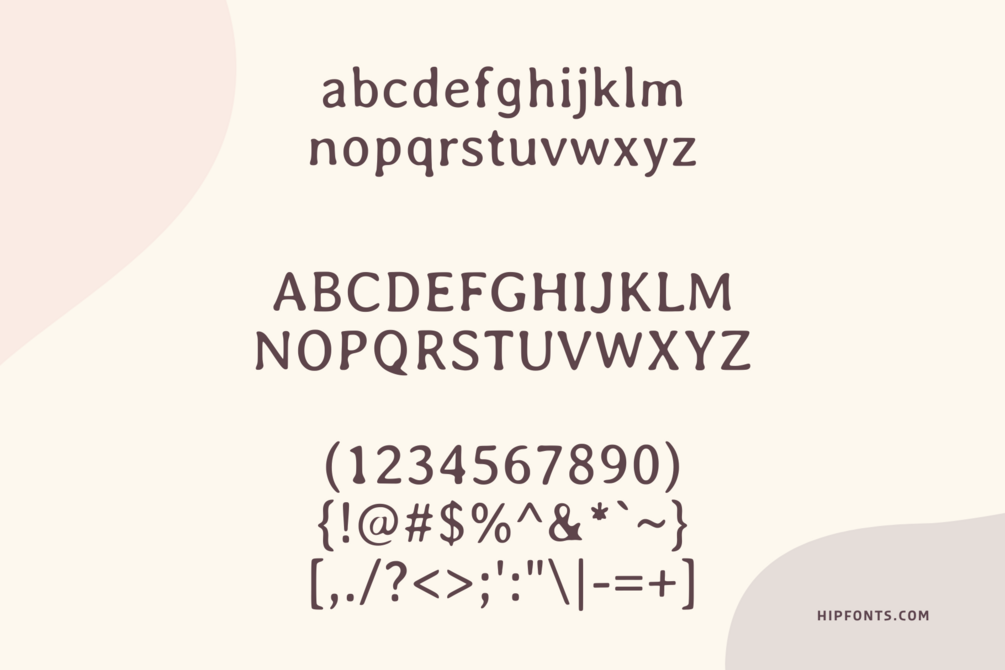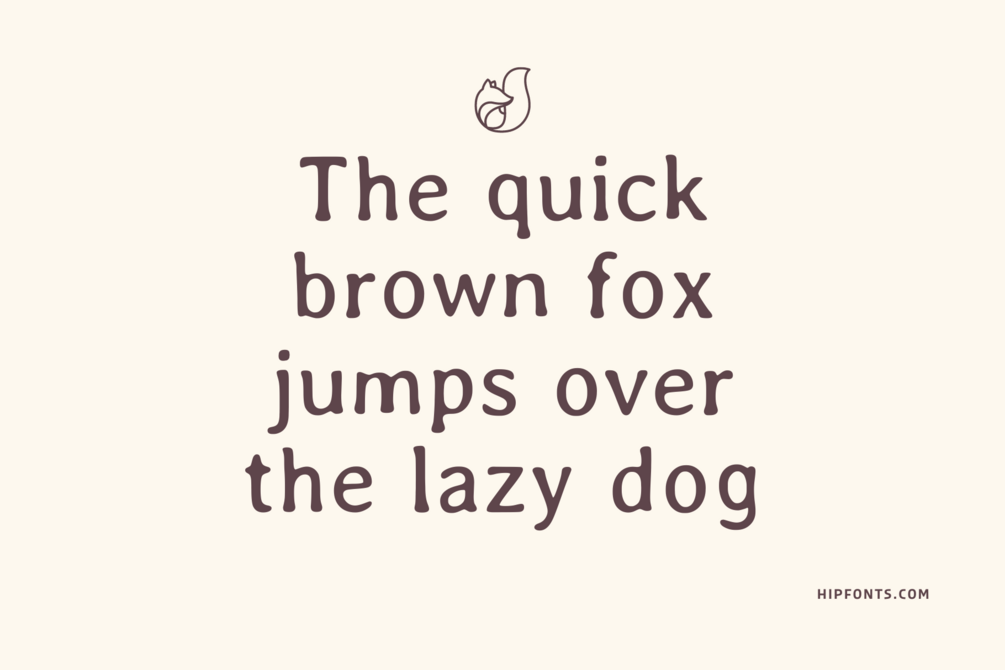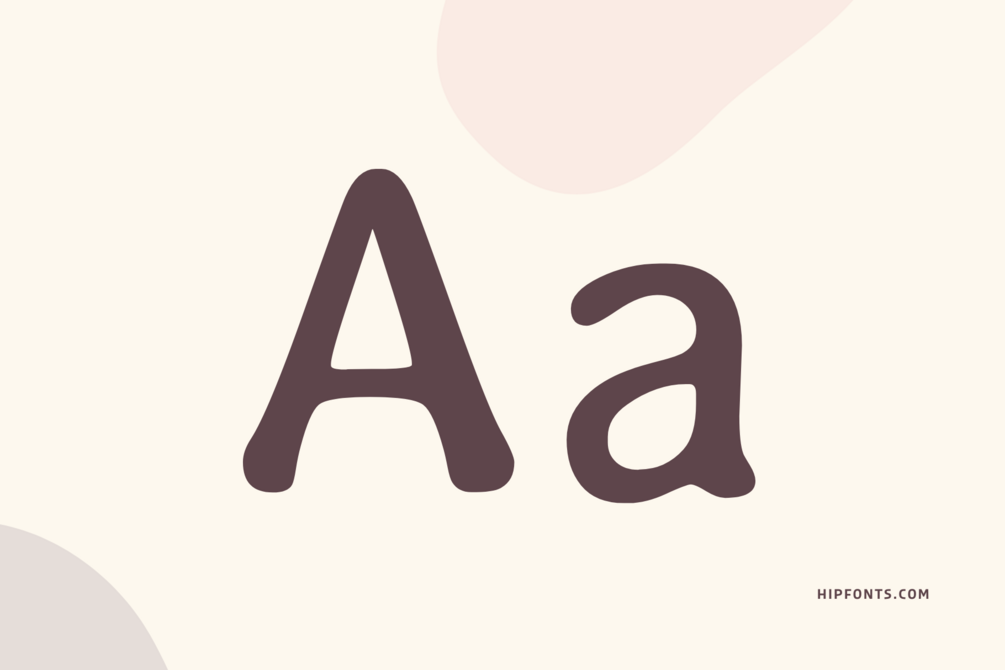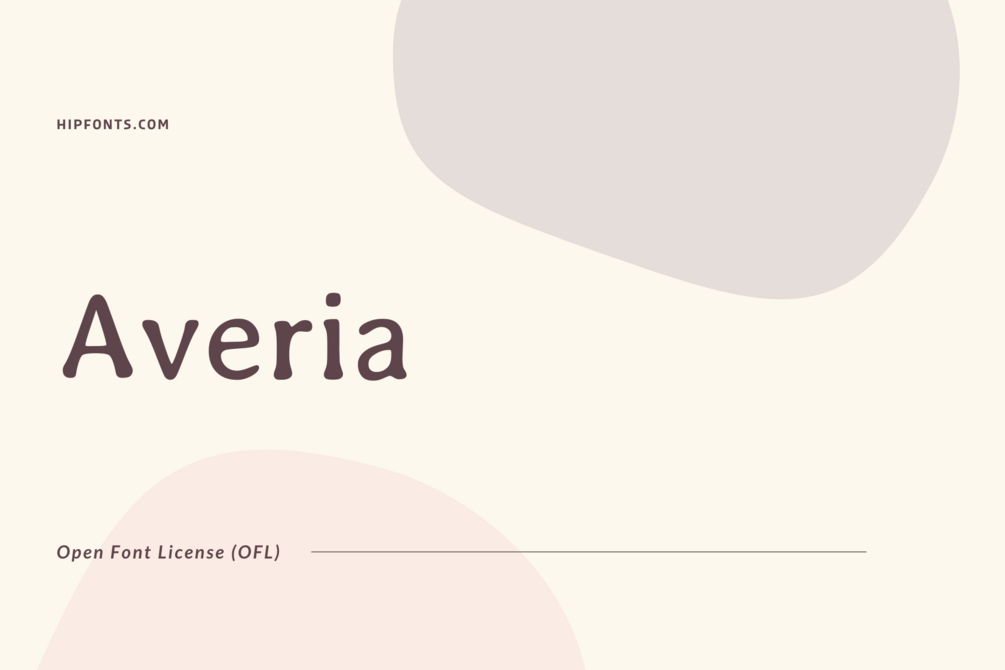
Averia
Averia is a versatile and expressive font that celebrates the beauty of handwritten typography.
Its charming and organic letterforms capture the essence of handcrafted calligraphy, adding a touch of warmth and personality to any design project. Averia's varied stroke widths and playful flourishes create a sense of movement and liveliness, making it a delightful choice for projects that aim to evoke a sense of authenticity and creativity.
This font's versatility allows it to adapt to different design styles, from whimsical and artistic to elegant and sophisticated. It works well in both digital and print applications, adding a personal touch to logos, headlines, invitations, and more. Averia's unique character shines through in its ability to convey emotions and tell stories through typography, making it a beloved choice for designers seeking a handmade aesthetic.